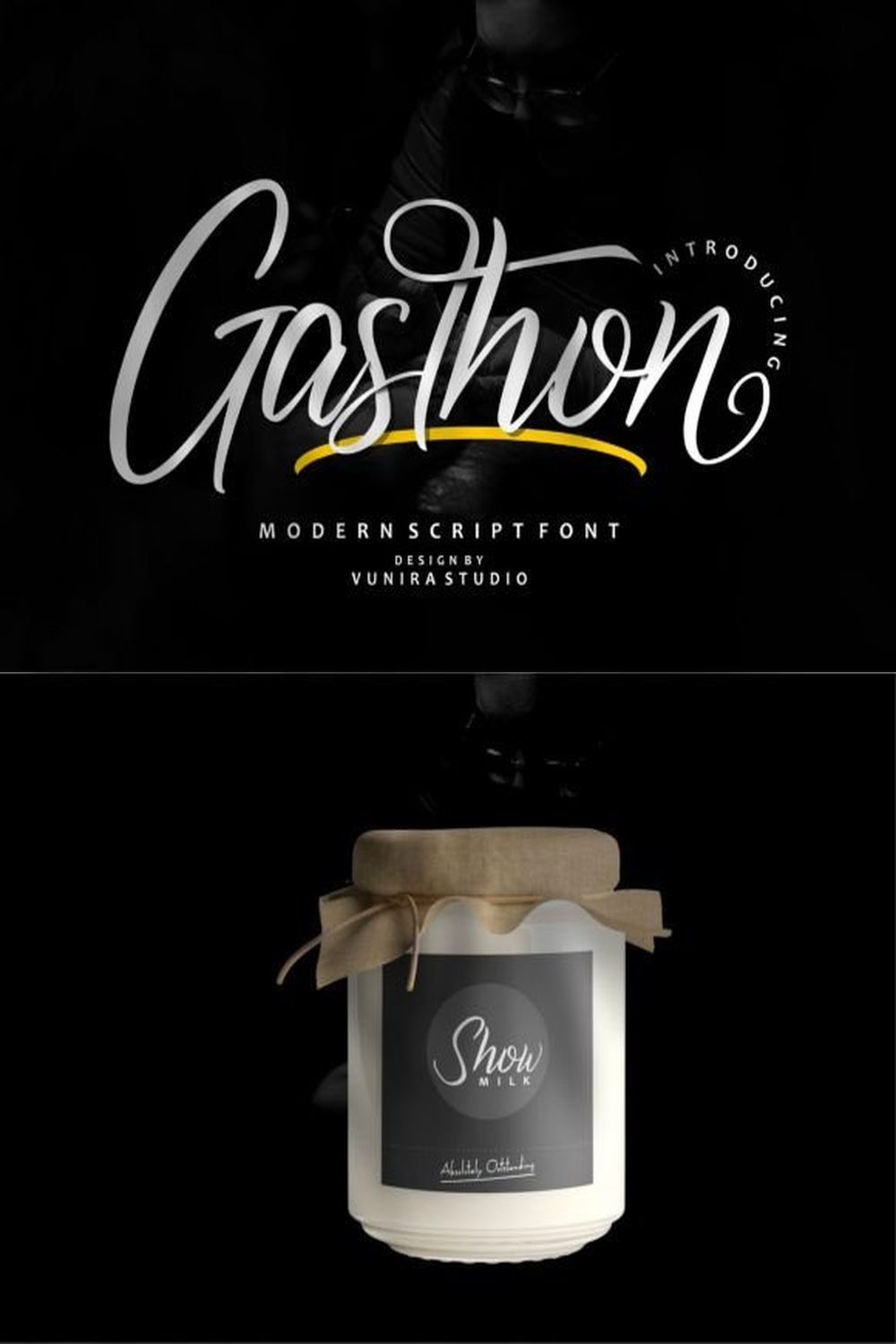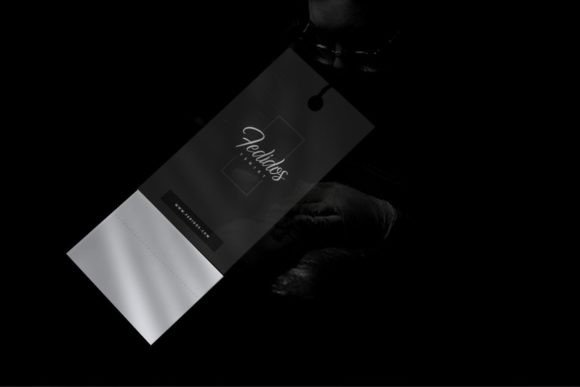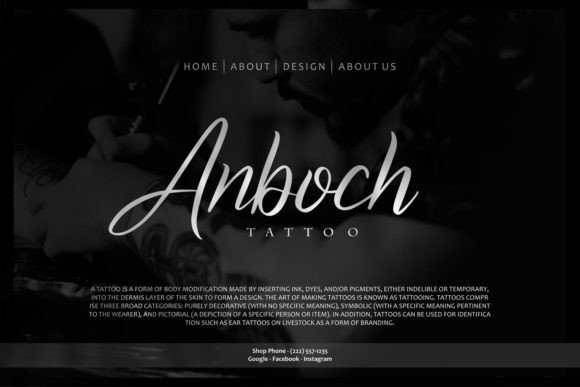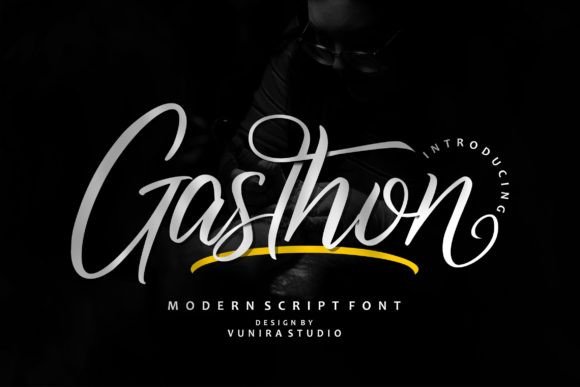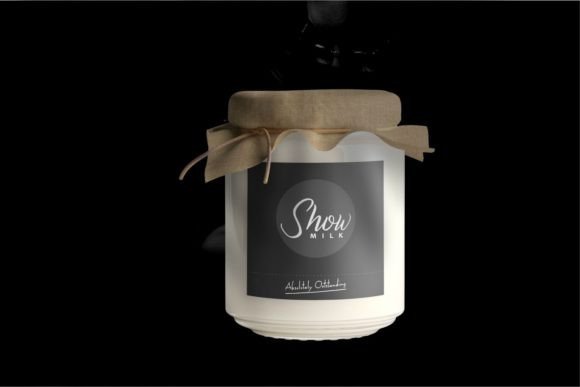
Gasthon Font: Modern Script for Elegant Wedding & Logo Design
About the Gasthon Font
The wait is over! The incredible Gasthon Font is now available for your design toolkit. Gasthon is a stylish Modern Script font that effortlessly combines sophistication with a contemporary vibe. With flowing, connected strokes, Gasthon brings a touch of elegance to your designs. Perfect for adding a modern and dynamic flair to invitations, branding, and various creative projects, this font is versatile and easy to use. Upgrade your text with Gasthon’s sleek and trendy script for a polished and engaging look.
Gasthon excels in applications requiring a touch of elegant modernity. Headlines, logos, short taglines, and invitations are ideal uses; its flowing forms create visual interest without overwhelming the design. However, its connected script is less suitable for body text or UI elements where legibility at smaller sizes is crucial.
Consider pairing Gasthon with a clean sans-serif like Open Sans for a balanced contrast, or a geometric sans-serif like Montserrat for a more modern feel. For a warmer aesthetic, a classic serif such as Garamond can complement its sophistication. Avoid pairing it with other highly decorative scripts, as this could create visual clutter.
Gasthon projects a sophisticated yet approachable personality, making it well-suited for brands aiming for a balance of elegance and approachability. Think upscale boutiques, lifestyle brands, or high-end stationery.